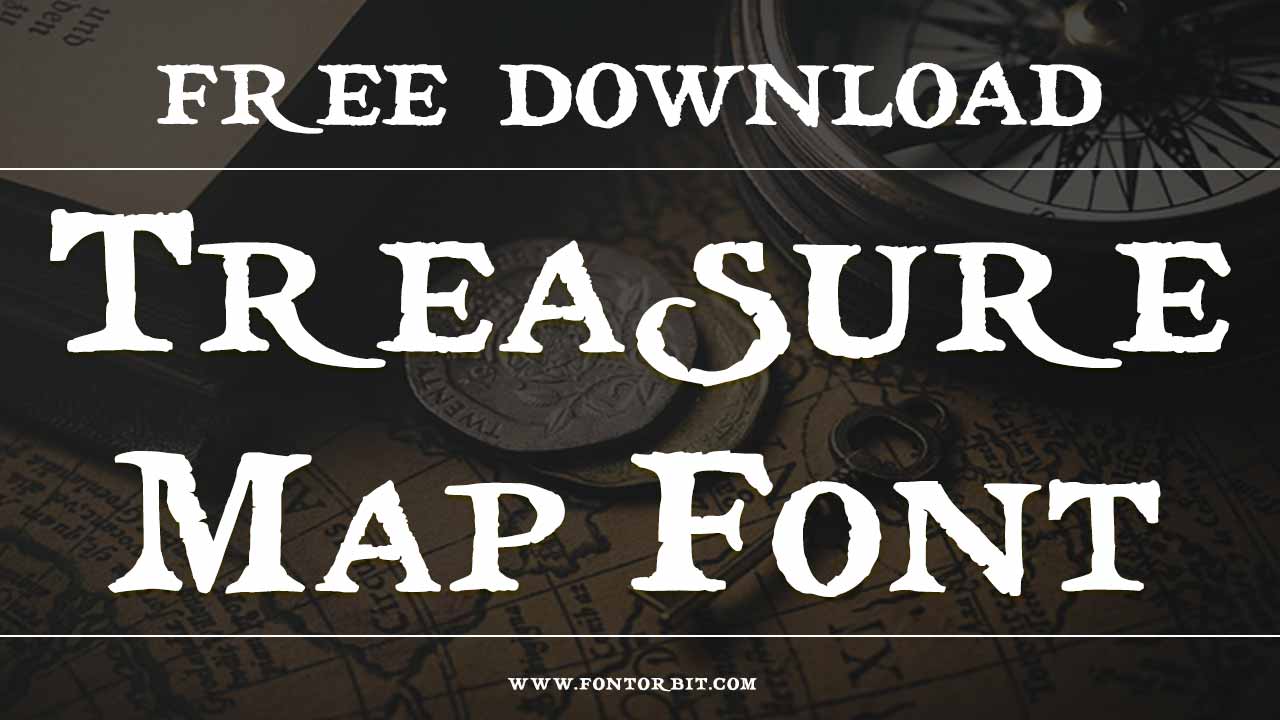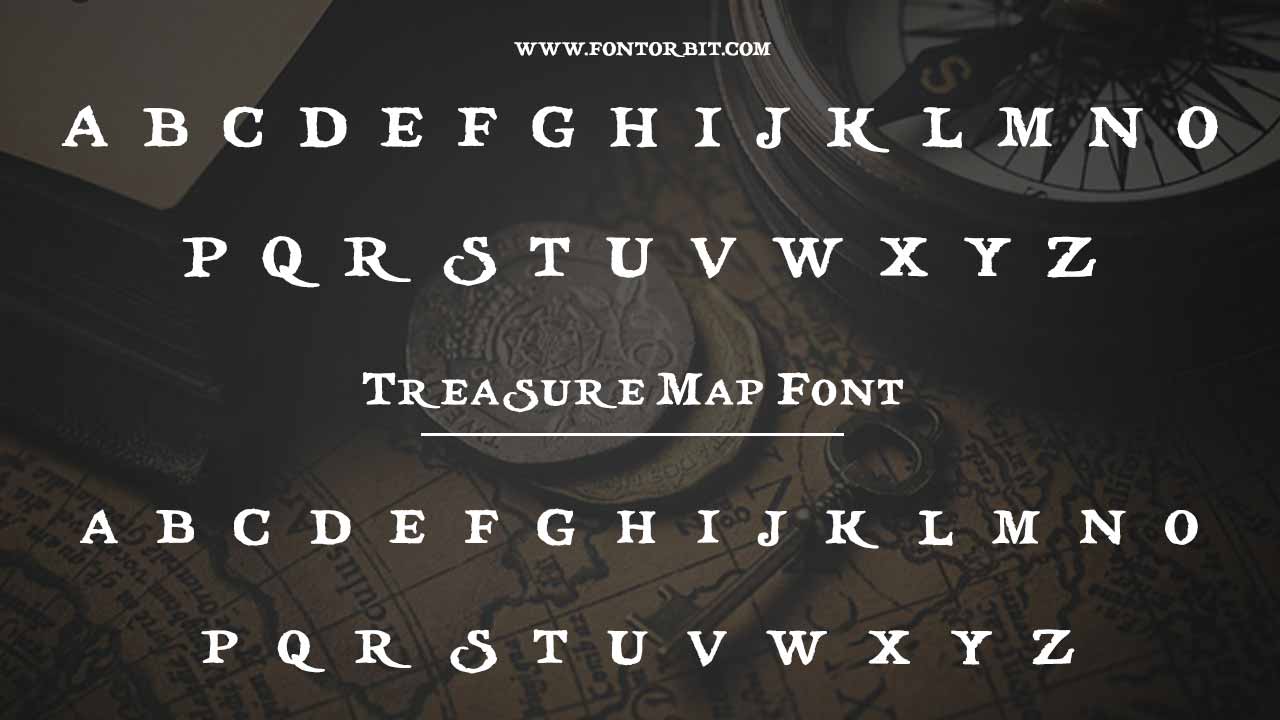
Treasure Map Font, designed by JoannaVu, is a captivating serif font that embodies the adventurous spirit of pirates and treasure hunts. This elegant yet rugged font is perfect for creating unique invitations and posters with a vintage, treasure-themed look. Whether you’re designing for a themed party, a fantasy event, or a product launch, this font will bring your ideas to life with its distinctive style.
Why Choose Treasure Map Font?
Treasure Map Font is ideal for giving your designs a unique, adventurous feel. Here’s why it’s a great option for invitations and posters:
- Distinctive Serif Style: With bold, decorative features, this font exudes elegance while maintaining a rugged pirate vibe.
- Versatile Use: Suitable for various projects including invitations, posters, business branding, and even product packaging.
How To Use Treasure Map Font
1. For Invitations
Treasure Map Font is perfect for setting the tone of themed events. Whether it’s a pirate party or a treasure hunt-themed gathering, it adds excitement and personality to your invitations. Use it prominently for event titles or in conjunction with other decorative fonts for additional flair.
2. For Posters
The bold nature of Treasure Map Font makes it ideal for eye-catching posters. You can use it for headlines or in combination with other fonts to balance out the design. Use special characters like treasure chests, compass roses, and pirate symbols to create an engaging visual.
3. For Product Packaging
If your business offers products related to adventure, fantasy, or pirates, this font is a great choice. Use it on packaging to grab attention and evoke excitement. You can pair it with more neutral fonts for product descriptions while keeping the headline text in Treasure Map Font.
Treasure Map Font Family & Best Pairing Options
While Treasure Map Font is the star, it’s important to explore how it fits into a broader design context. Here’s a list of some serif font families and related fonts that pair well with Treasure Map Font:
| Font Family | Font Type | Description |
| Treasure Map | Serif (Main) | Vintage, decorative, pirate-inspired |
| Romelio Classy | Serif (Modern) | Elegant and clean serif with refined features |
| Maxwell Leonard | Serif | Bold, clean serif perfect for display text |
| Fanlste | Serif | Elegant serif with a sophisticated feel |
| Zarla | Serif | Elegant and contemporary serif for a balanced look |
| Style: | Scratchy |
Pairing fonts effectively can enhance the visual impact of your designs. Here are some suggestions:
- For Headlines: Use Treasure Map Font for the title to create a bold, adventurous look. Pair it with Montserrat for a modern contrast.
- For Body Text: Complement Treasure Map Font with a readable serif like Merriweather to ensure clarity and balance.
- For Decorative Elements: If you want to add a whimsical or hand-drawn feel, pair it with Jolly Roger, a fun, quirky font that blends well with the treasure theme.
Tips For Customizing Your Design
- Colour: Choose a colour palette that fits the theme of your design. For a pirate or treasure hunt theme, consider earthy tones like browns, greens, or deep blues. You can also experiment with gold and metallics to add a touch of treasure.
- Size: Use larger sizes for headlines and smaller sizes for body text. This ensures your design maintains a clear hierarchy and visual flow.
- Special Characters: Don’t forget to explore the character map for access to special symbols like treasure maps, ships, and pirate accents. These can elevate your design and add visual interest.
Key Design Considerations
When incorporating Treasure Map Font into your designs, keep the following in mind:
- Reader Interactions: Make sure the font remains legible even in smaller sizes. Adjust line spacing and size to ensure readability.
- Social Media Integration: Use the font on your social media posts to create a consistent visual style that resonates with your audience.